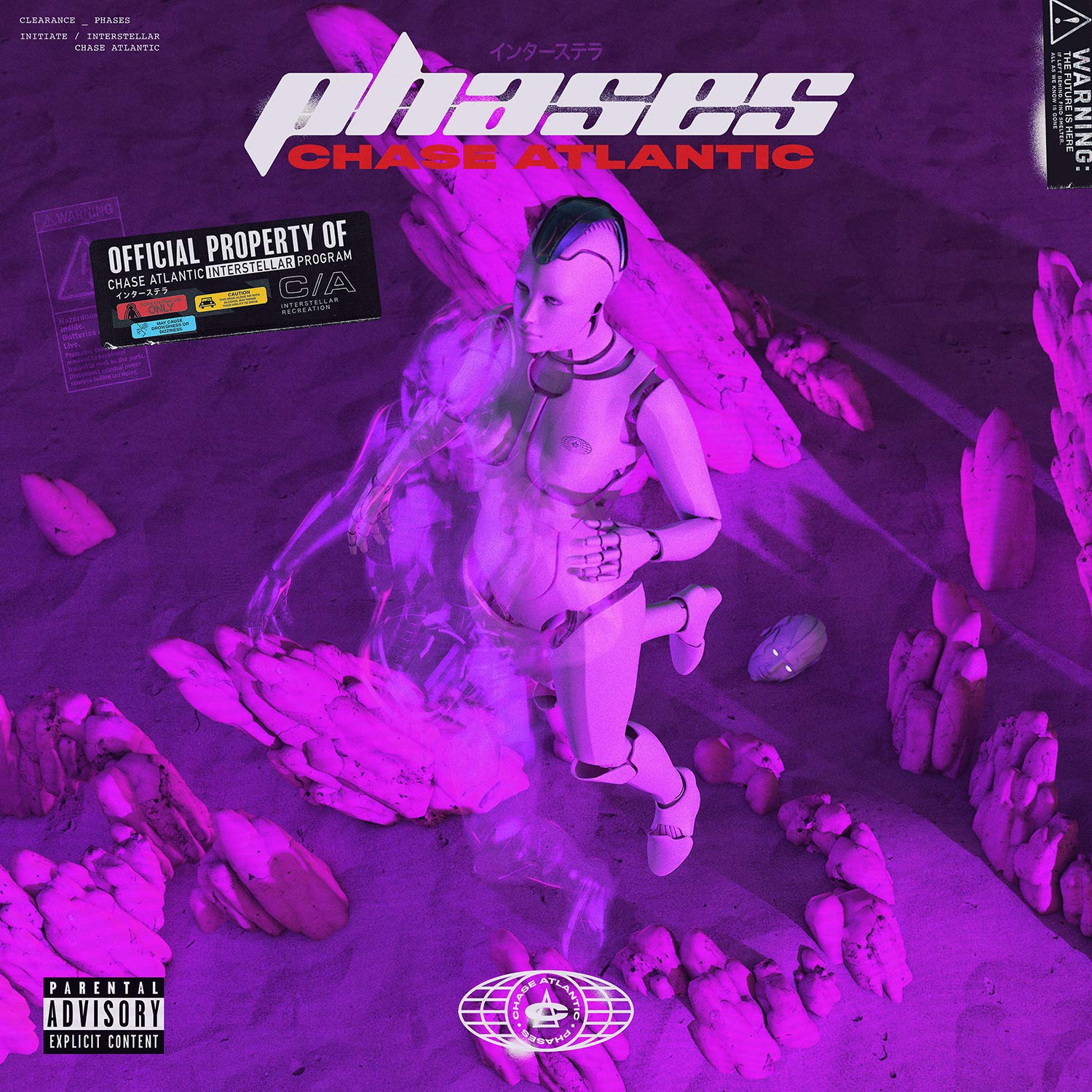
Chase Atlantic Font
Fonts in UseChase Atlantic is an alternative R&B trio from Australia. Their music is characterized by smooth vocals, electronic beats, and atmospheric production.
The title on the cover art of their album "Phases" is displayed in the free font Planet Kosmos, while the band's name is presented in David Berlow's grotesque sans Titling Gothic in the Extended Black weight.